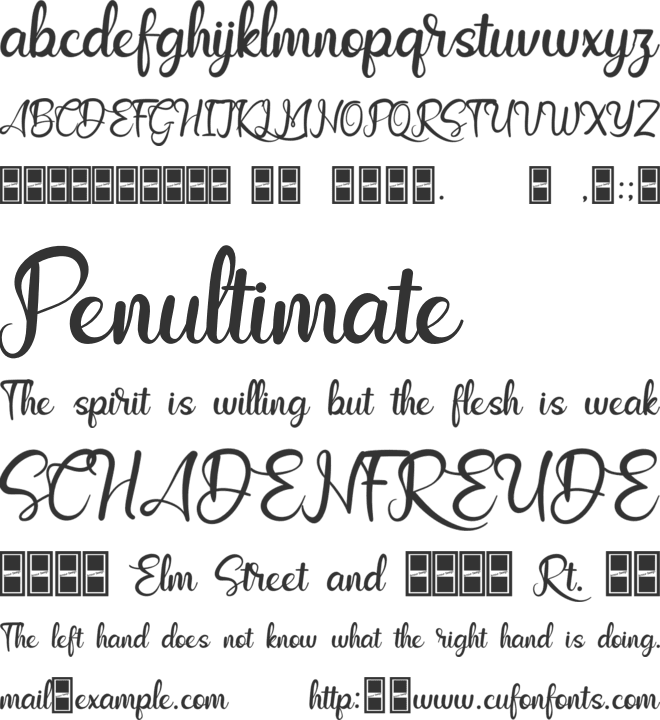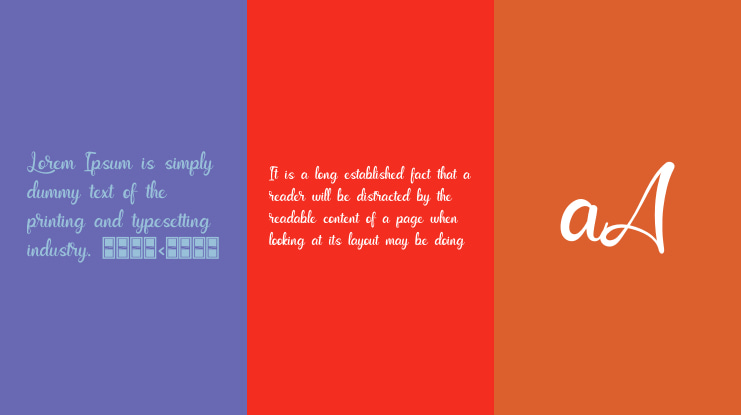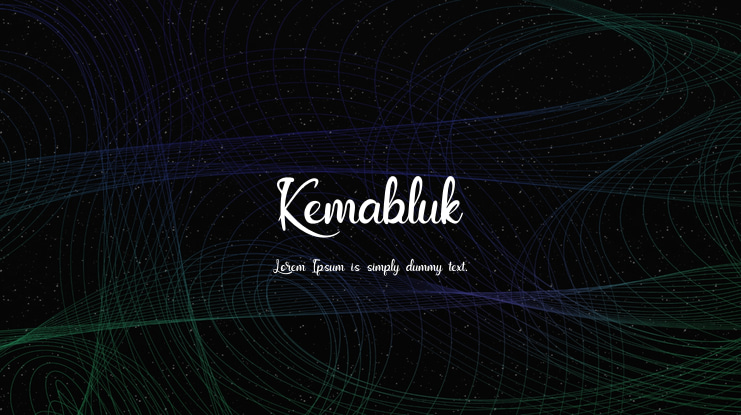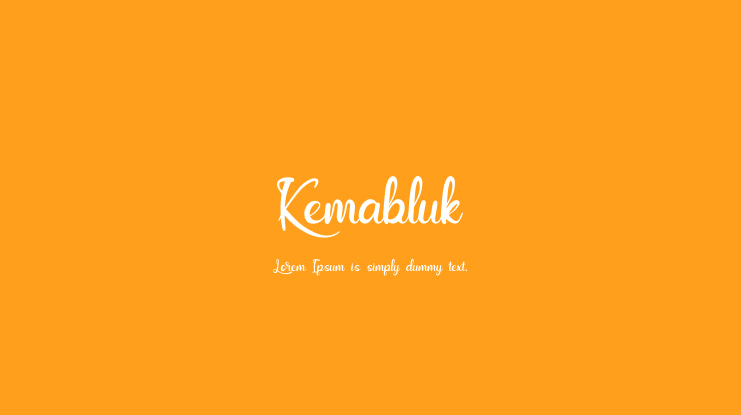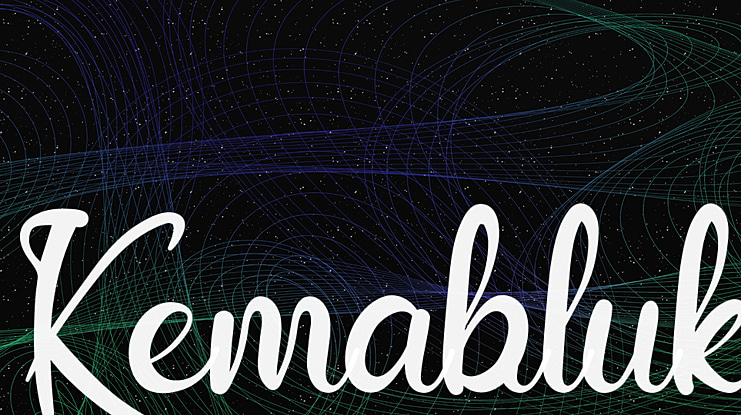
Kemabluk is a smooth and beautiful handwritten font. small and cute,
This font would be ideal for writing wedding invitations, cards, logos,
quotes or other designs that may require romantic and personal
touch!